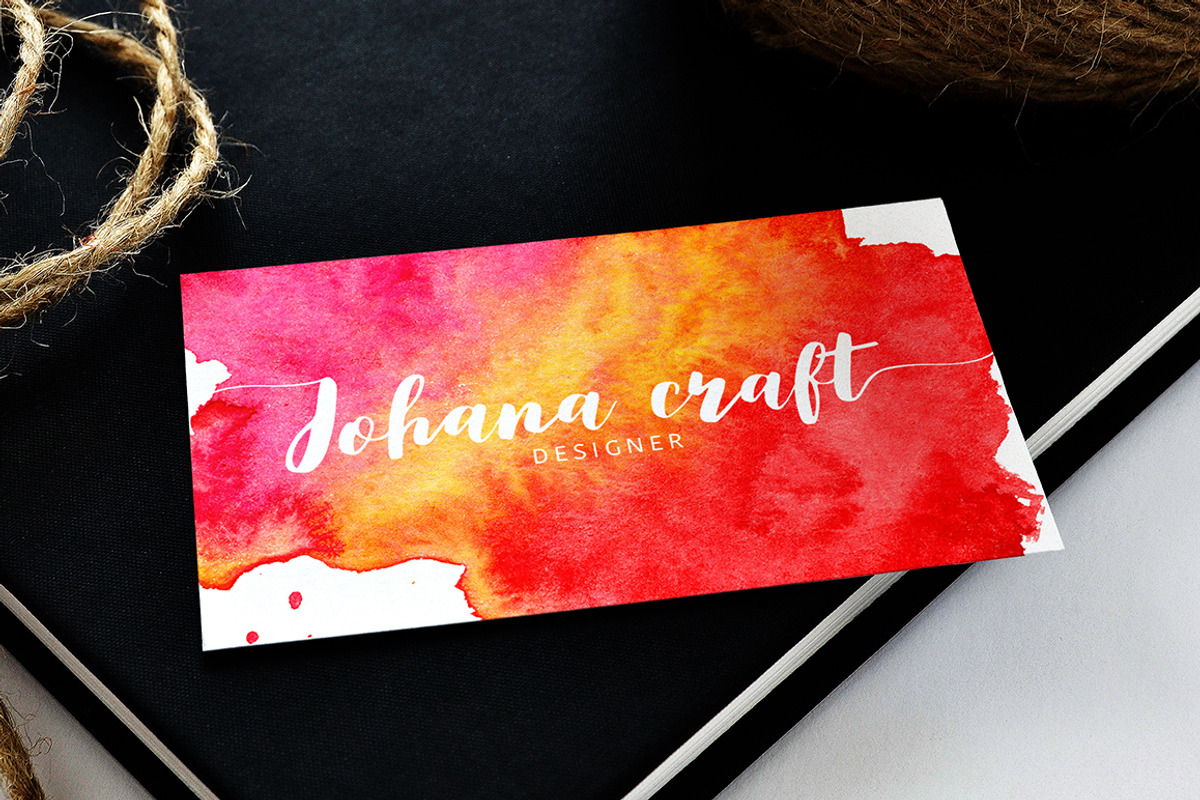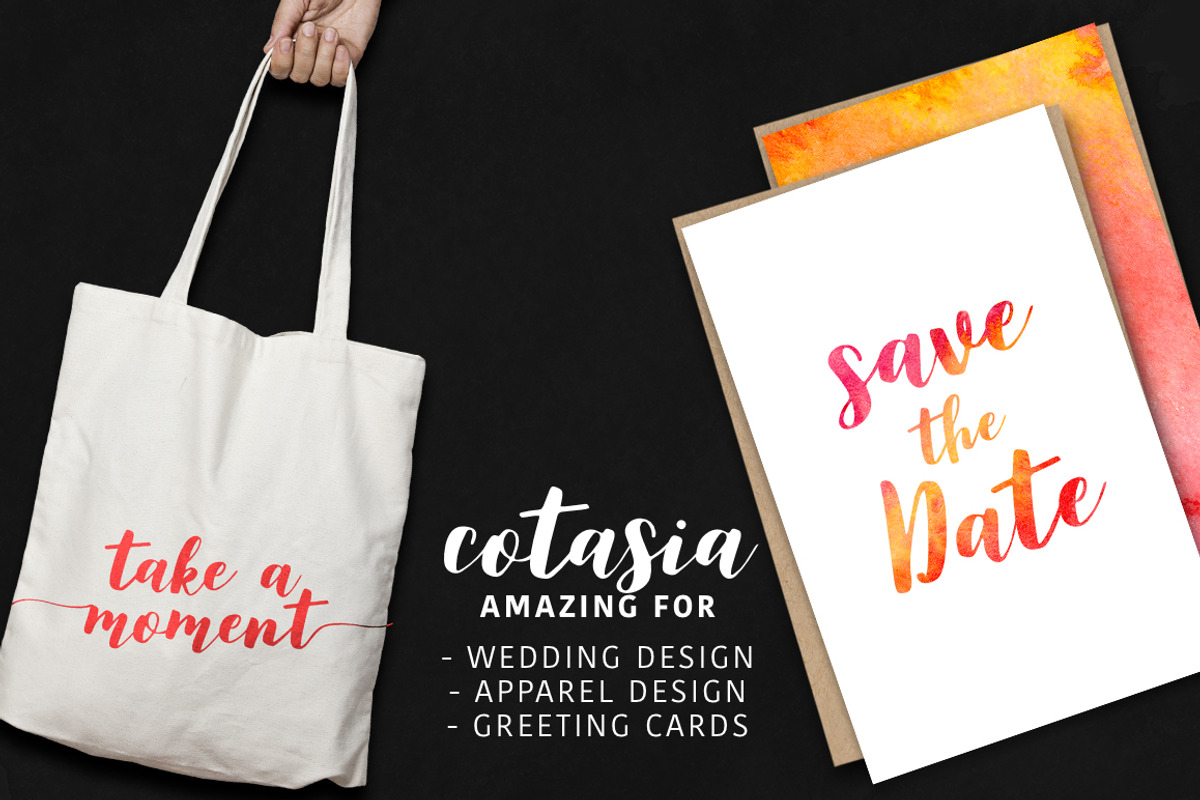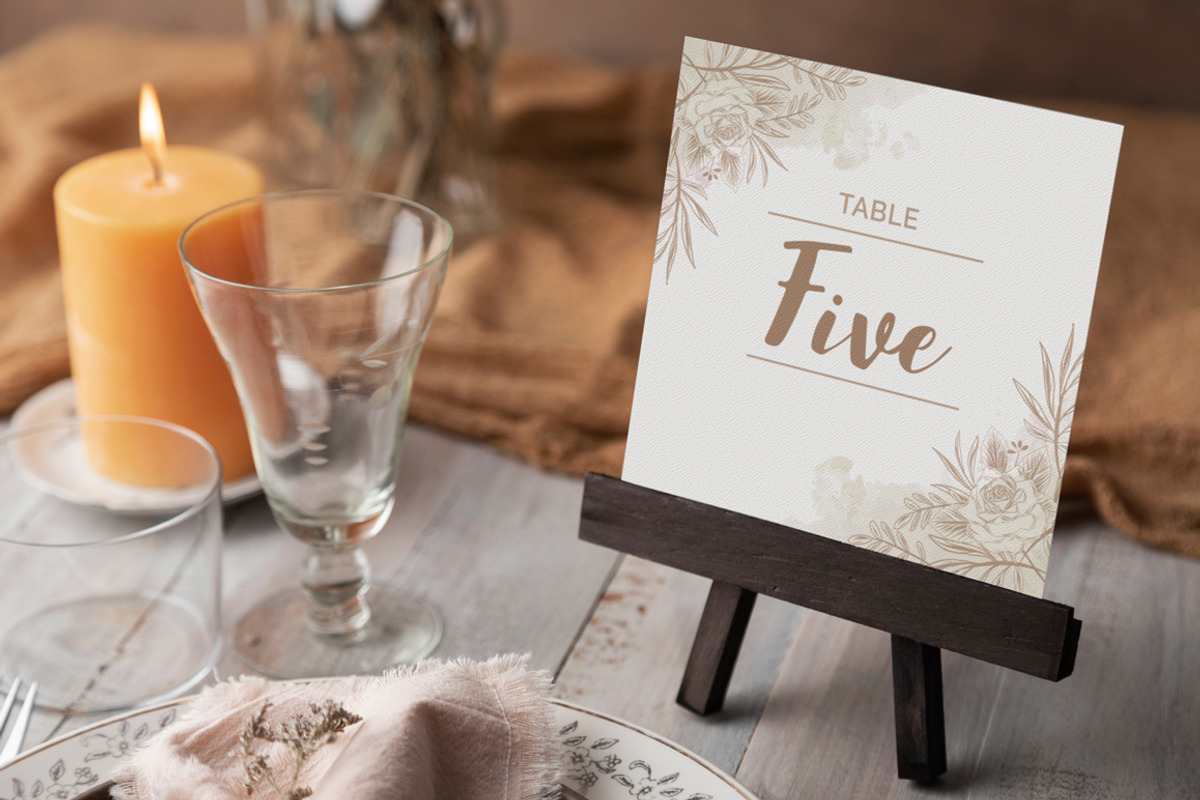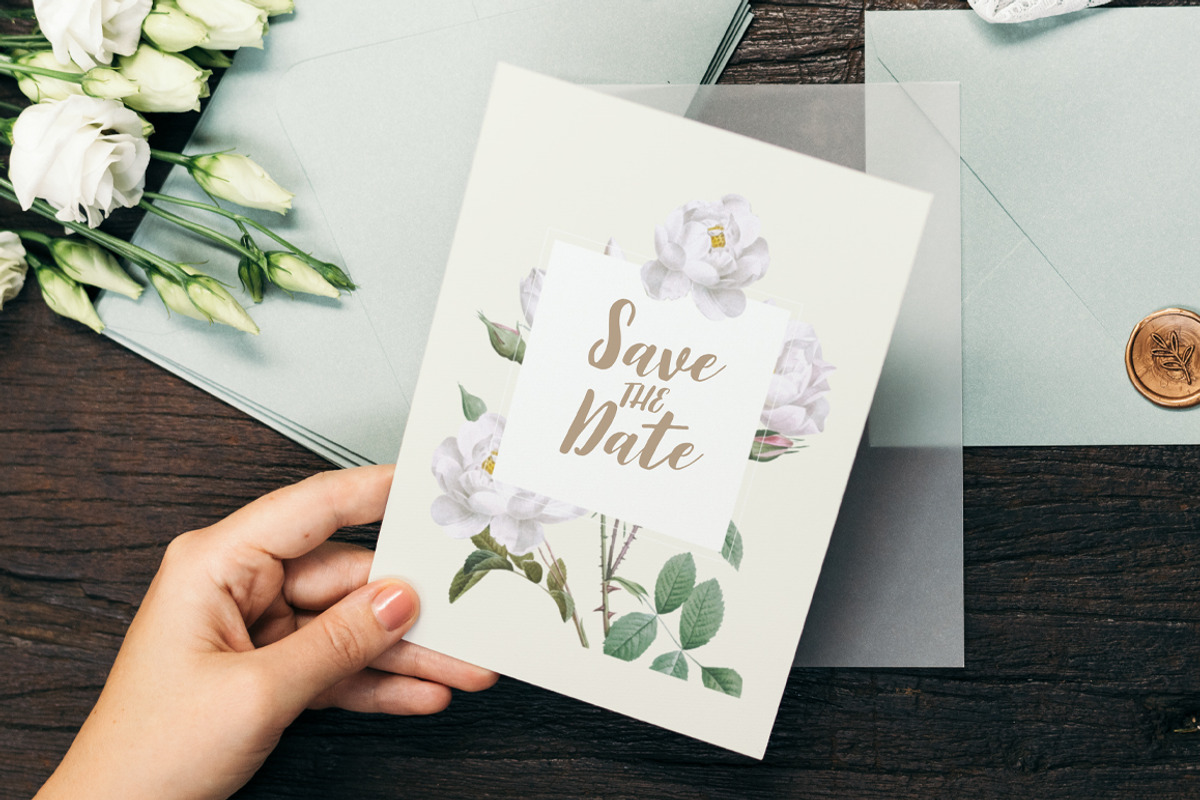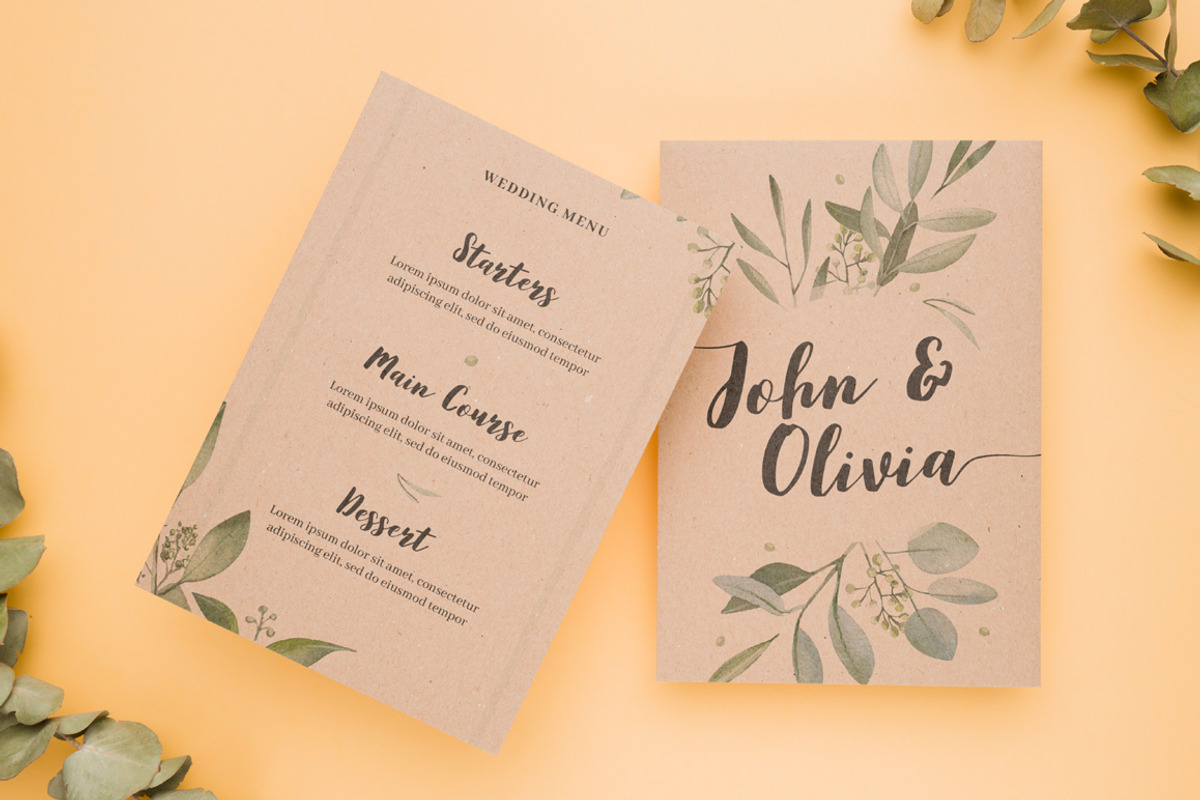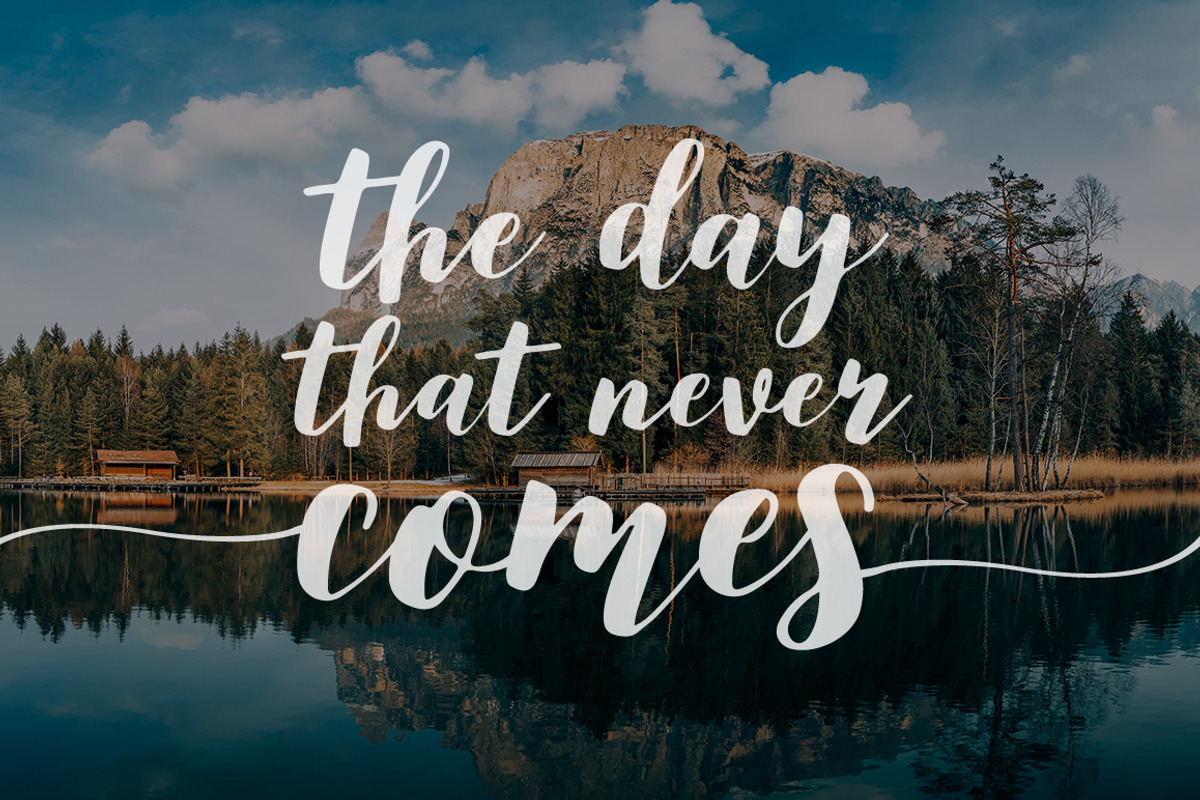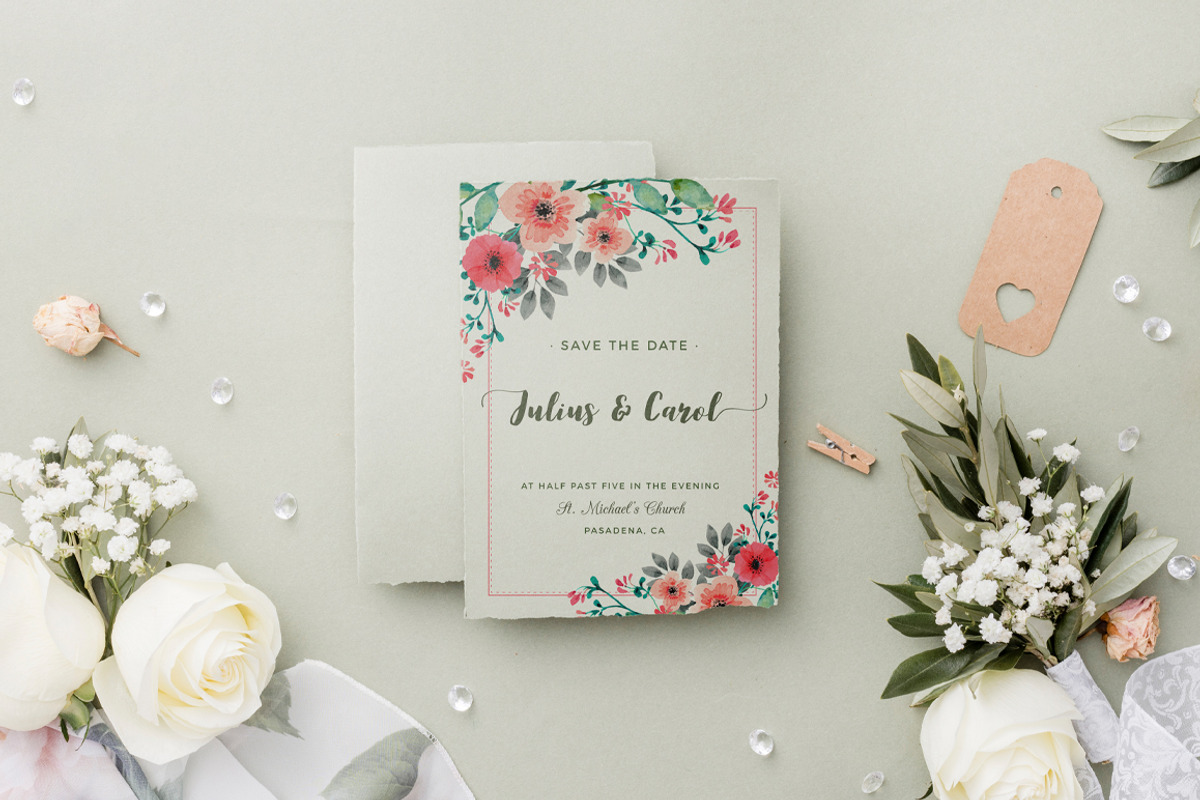
Cotasia swashes Wedding font
Cotasia swashes Wedding font by supfonts is a font selected for branding, posters, packaging, typography.
Why Cotasia swashes Wedding font is worth a look
Cotasia swashes Wedding font by supfonts fits naturally into Branding, posters, packaging, typography.